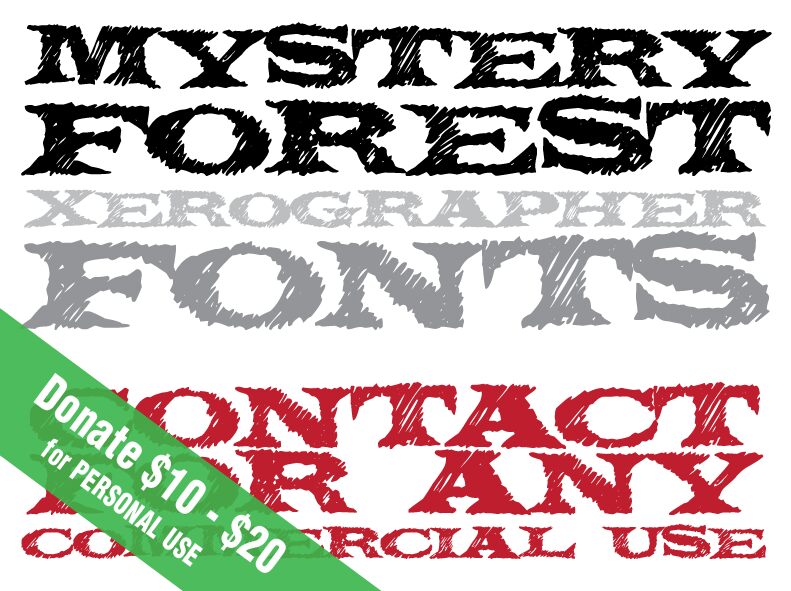
Mystery Forest, created by Xerographer Fonts in 2012, is a free scary eroded display font with broad, jagged capitals. Dense scratch marks cut through the strokes.
Posters can use its torn edges and rough hatching to set an uneasy horror atmosphere. The same distressed lettering suits haunted-house event graphics, game title screens, and Halloween merchandise. Its strongest connection is to woodland horror, where the splintered texture can suggest bark, claw marks, or damaged trail signs.
Mystery Forest from Xerographer Fonts is a free horror display font.